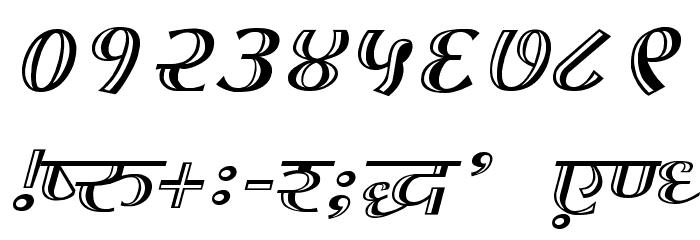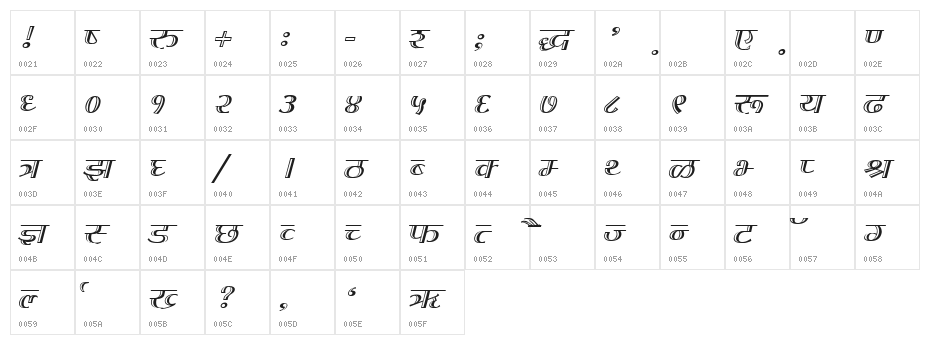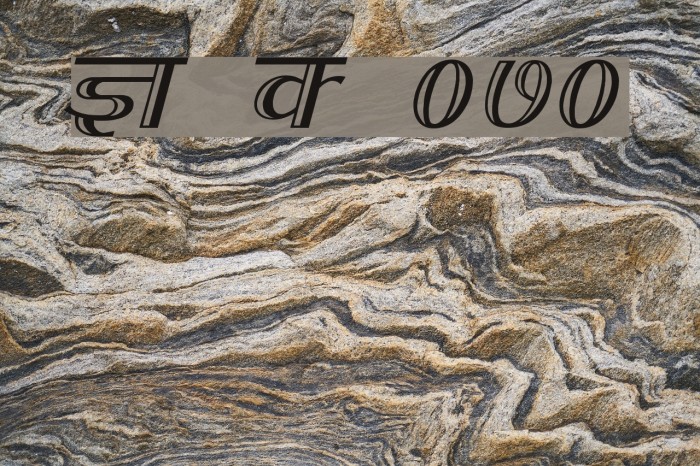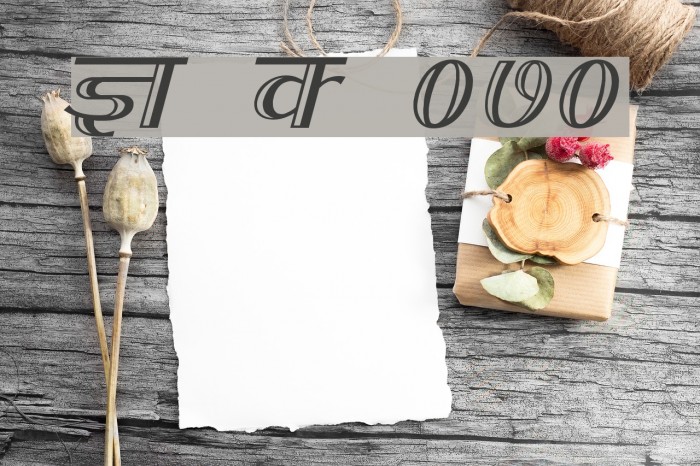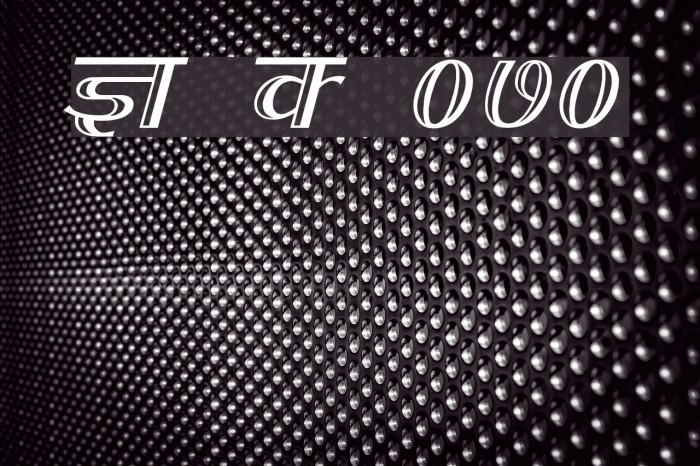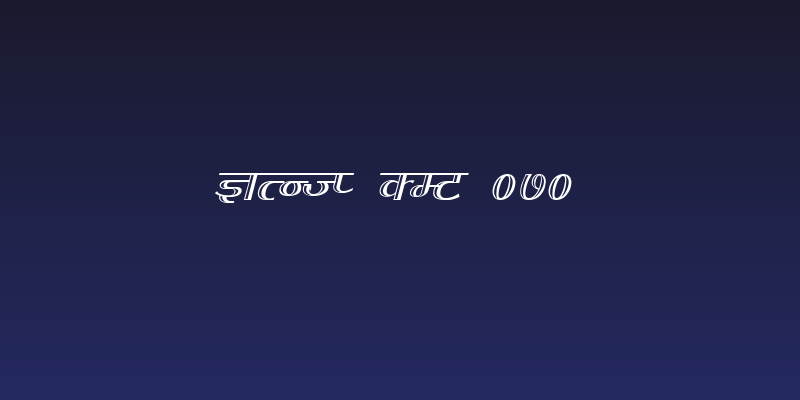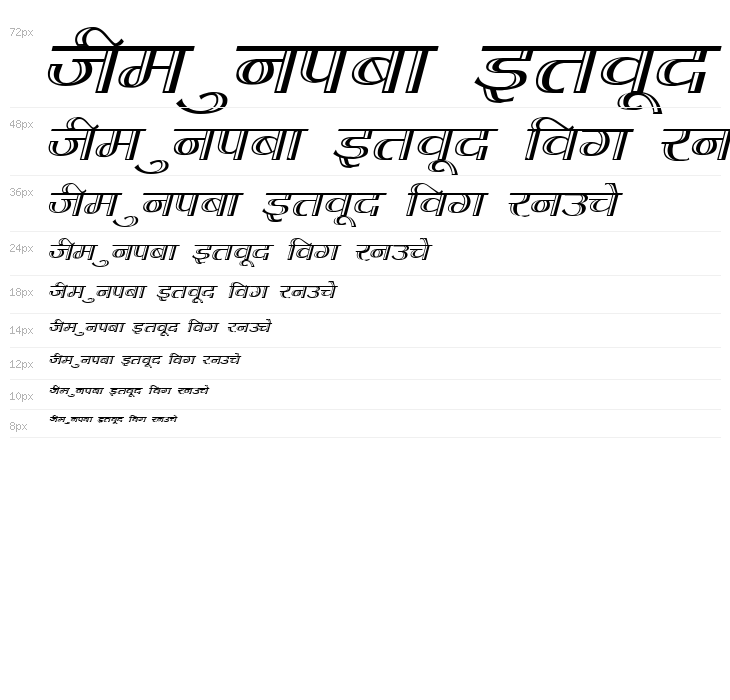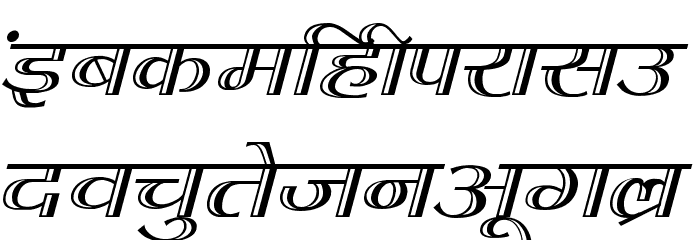
Kruti Dev 070 Font
Kruti Dev 070 Description
This font showcases a traditional Devanagari script style, characterized by its elegant and flowing strokes. The characters are intricately designed with a consistent slant, giving them a dynamic and lively appearance. The script maintains a balance between readability and artistic flair, making it suitable for both formal and decorative purposes. The numerals and special characters are harmoniously integrated, maintaining the overall aesthetic of the script. The font's design reflects a cultural richness, ideal for projects that require a touch of traditional Indian artistry.
| Overall Style | Traditional |
| Use Case | Headlines, Artistic projects, Cultural materials |
| Proposed Projects | Ideal for cultural publications, traditional event invitations, artistic posters, and educational materials in Hindi or Marathi. |